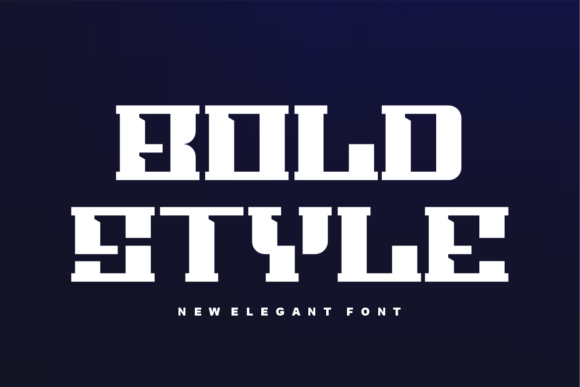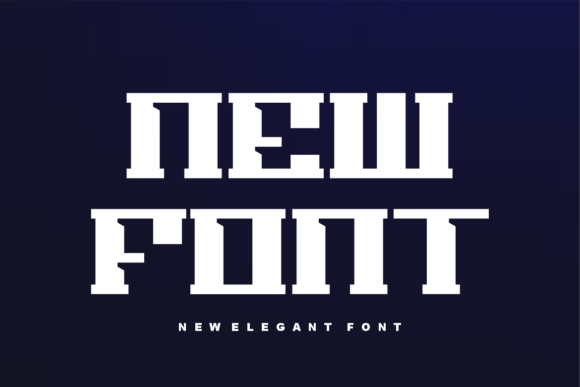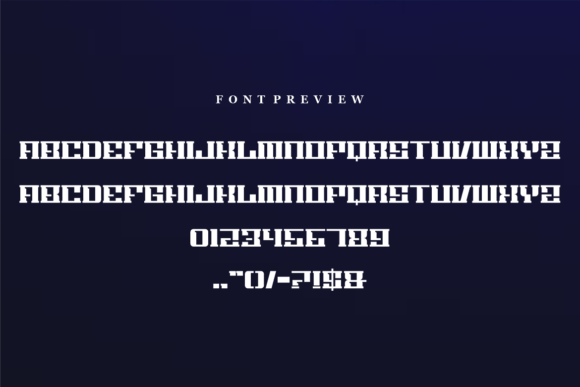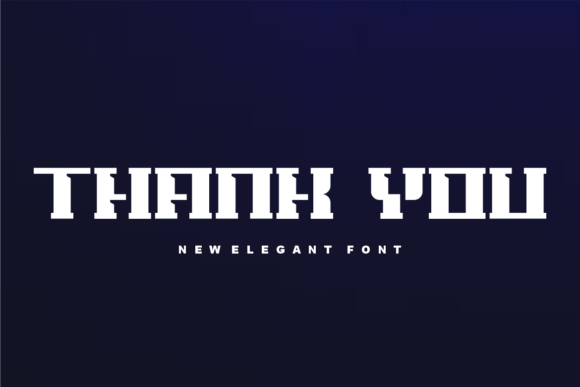
The Bigyser Font: A Bold and Authentic Display Font for Your Design Projects
I’ll never forget the time I was working on a logo design project for a new esport team. I had a clear vision of what I wanted to create, but I was struggling to find the perfect font to bring it all together. That’s when I stumbled upon the Bigyser Font, a bold and authentic display font that instantly caught my attention. In this article, I’ll share my experience with Bigyser, its features, and how to make the most of it in your design projects.
An Honest Review of Bigyser Font
What I Love About Bigyser ✨
- ✅ Bold and authentic: Bigyser Font has a unique, eye-catching style that’s perfect for making a statement in your designs.
- ✅ Versatile: This font is suitable for a wide range of contexts, from logo design to esport branding, and more.
- ✅ Easy to read: Despite its bold nature, Bigyser Font remains surprisingly legible, even at smaller sizes.
- ✅ OpenType features: Bigyser Font comes with a range of OpenType features, including stylistic alternates and glyphs, which can add an extra layer of creativity to your designs.
- ⚠️ Limited use cases for body text: While Bigyser Font is amazing for headlines and titles, it may not be the best choice for body text due to its bold nature.
- ⚠️ Some characters may require manual kerning: As with any font, you may need to adjust the kerning of certain characters to achieve optimal results.
The Backstory of Bigyser Font
Bigyser Font was designed with the goal of creating a bold and authentic display font that could be used in a wide range of contexts. The designer aimed to craft a font that would be both visually striking and highly legible, making it perfect for use in logo design, esport branding, and more.
| What is Bigyser Font? | Bigyser Font is a bold and authentic display font designed for use in a wide range of contexts, including logo design, esport branding, and more. |
| Does Bigyser Font come with OpenType features? | Yes, Bigyser Font comes with a range of OpenType features, including stylistic alternates and glyphs. |